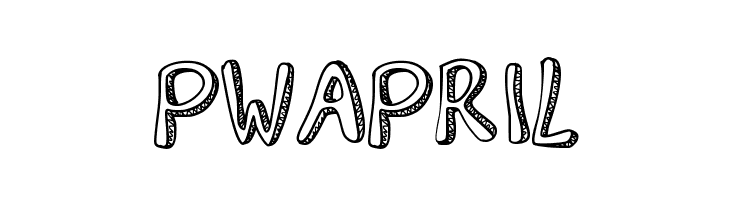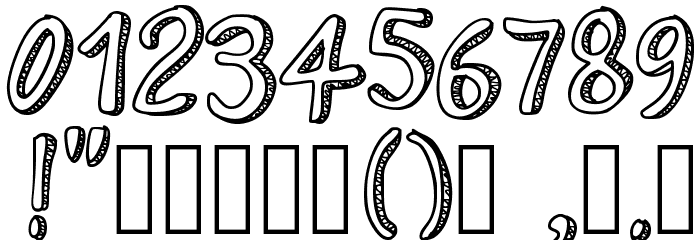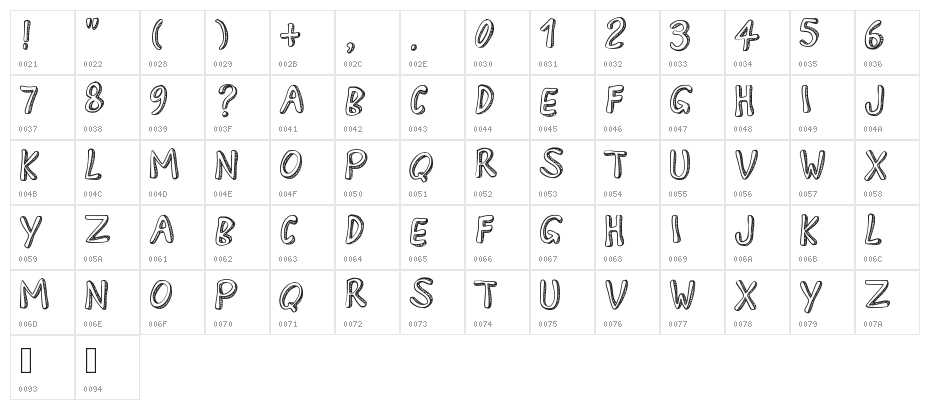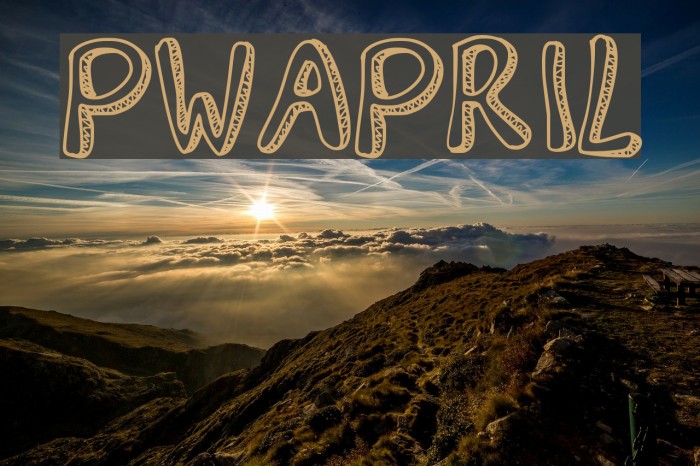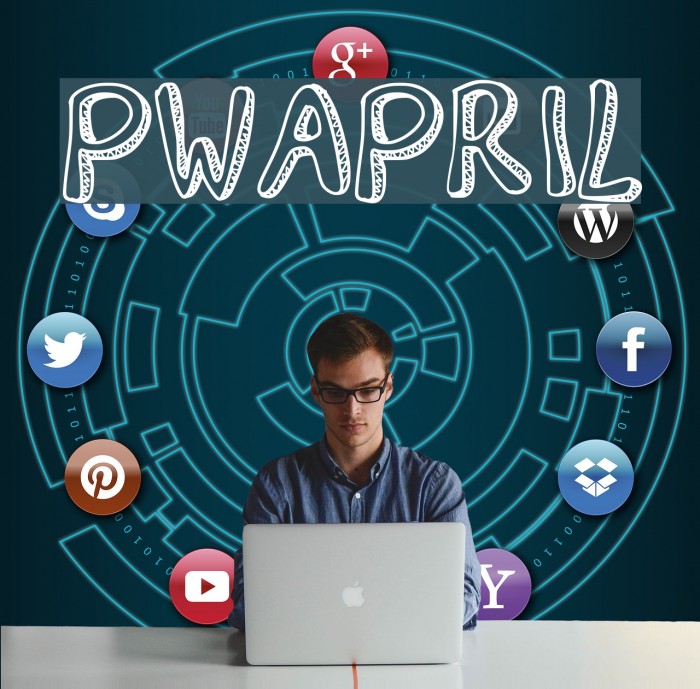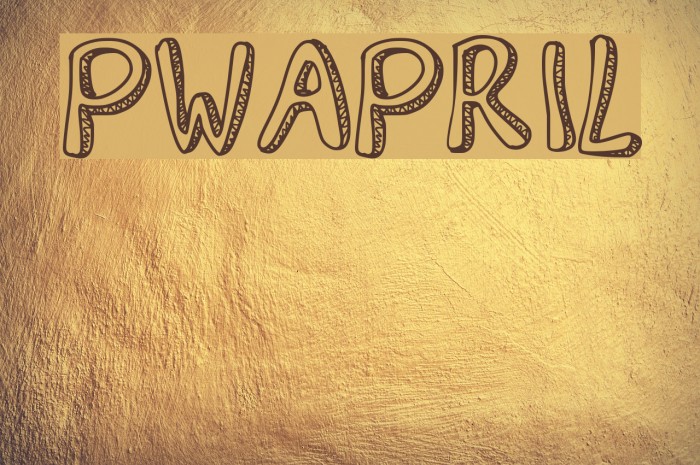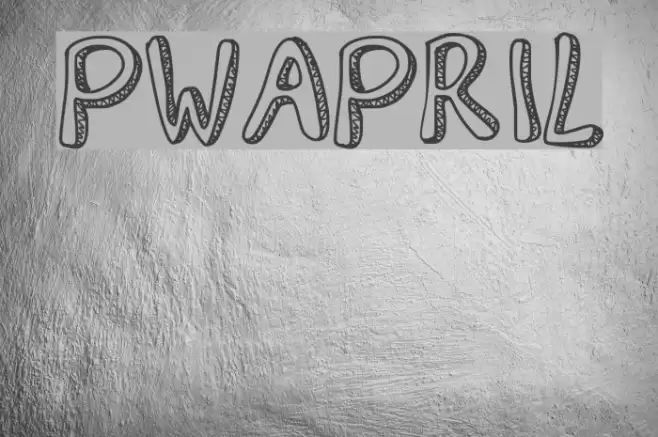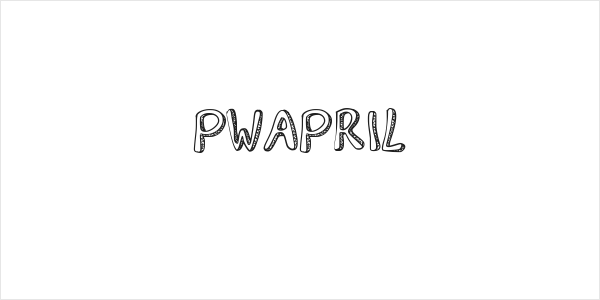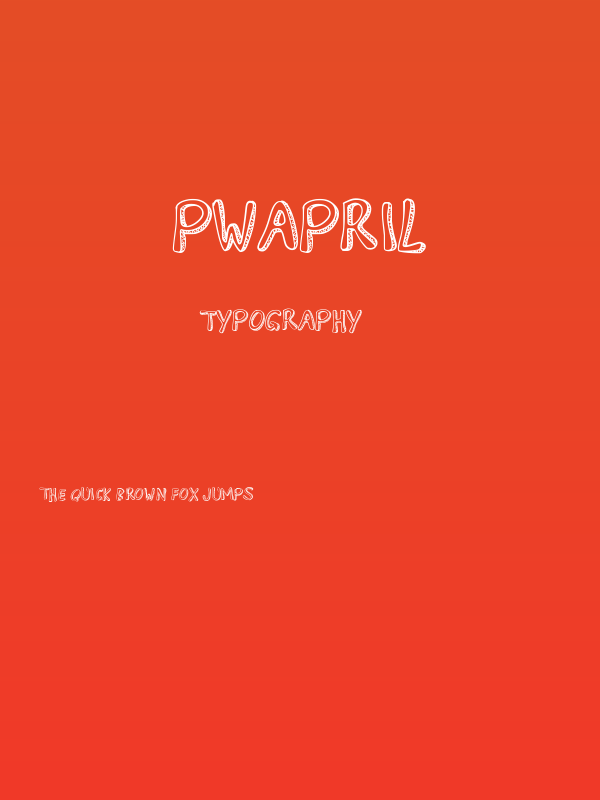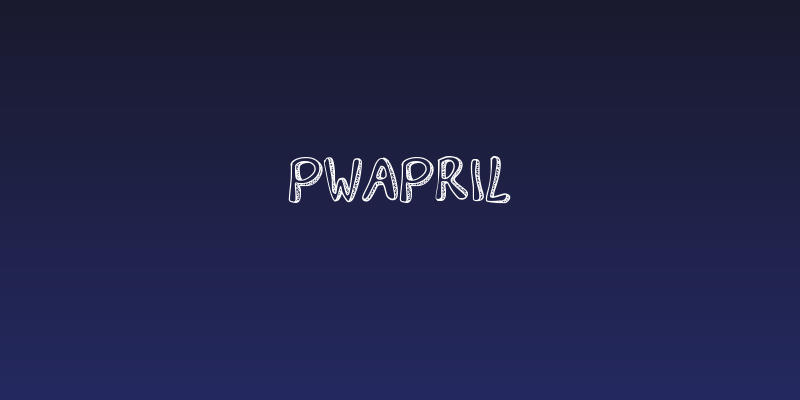
PWApril Font
PWApril Description
This playful and decorative font features a hand-drawn style with a bold outline and a textured fill, giving it a lively and dynamic appearance. The uppercase and lowercase letters maintain a consistent and whimsical design, with rounded edges and a slightly irregular form that adds to its charm. The numerals and special characters follow the same artistic style, ensuring a cohesive look across all elements. This font's unique character makes it ideal for projects that require a touch of creativity and fun.
| Overall Style | Playful, Creative |